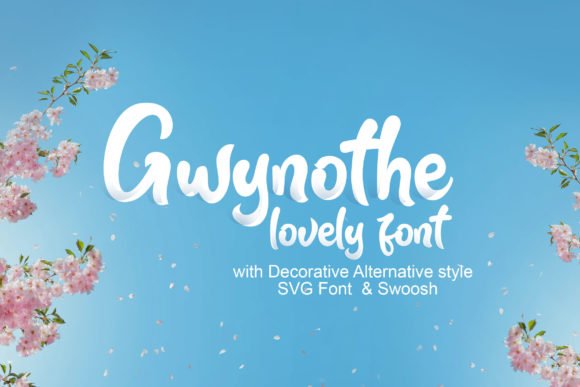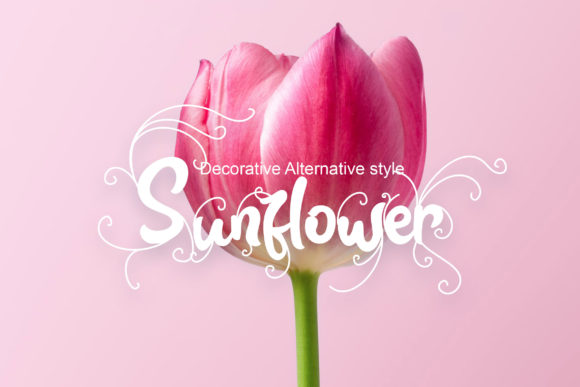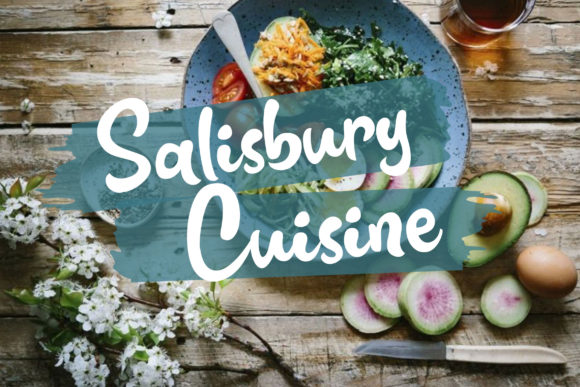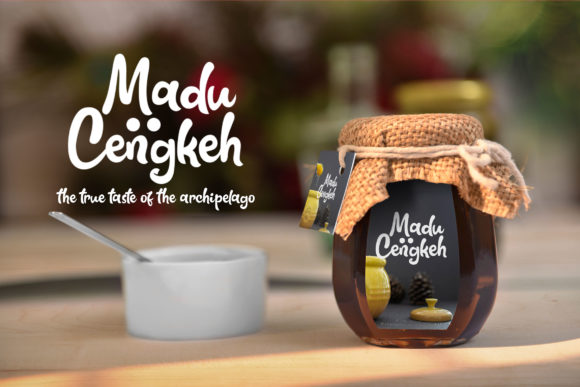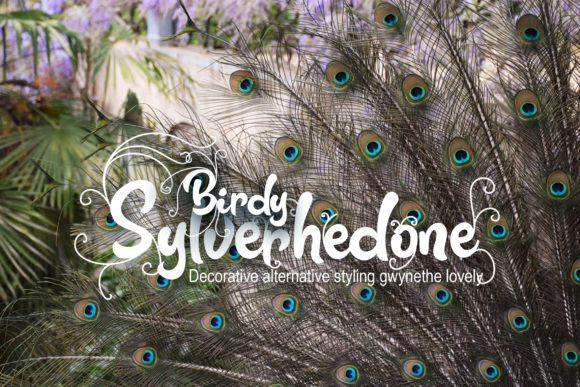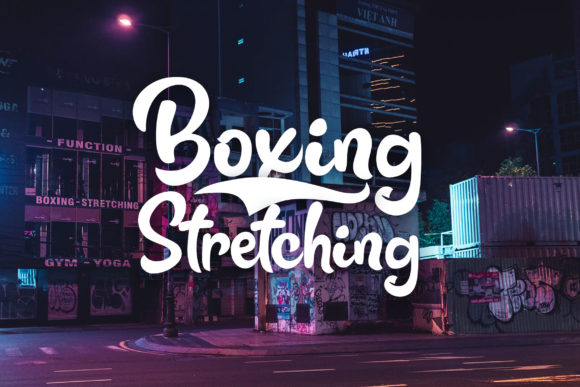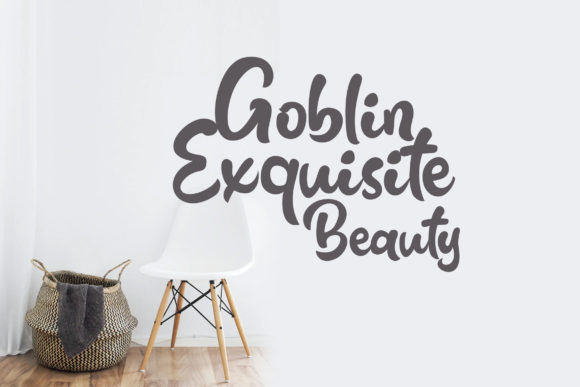
Unleash Your Creativity with the Perfect Handwritten Touch
Have you ever sat down with a blank page or screen, staring at a blank slate, trying to bring your creative vision to life? You’re not alone! We’ve all been there, struggling to find the right words or style to express our ideas. But what if you had the perfect tool to help you unlock your imagination and bring your creative ideas to life?
That’s where Gwynothe Font comes in – a cute and casual handwritten font that’s designed to add a friendly, approachable touch to any project. Whether you’re a designer looking to add a personal touch to a logo or branding, or a DIY enthusiast searching for the perfect calligraphy script for a handmade card, Gwynothe Font is the perfect companion to help you bring your creative ideas to life.
With its versatility and charm, Gwynothe Font is a valuable addition to any designer’s toolkit. Its unique, handwritten style makes it perfect for a wide range of applications, from social media graphics to wedding invitations.
Gwynothe Font Key Features
- Unique Characteristics: Gwynothe Font features a distinctive, hand-drawn aesthetic with intricate details and subtle texture, making it perfect for creating unique and eye-catching designs.
- Kerning and Ligatures: Gwynothe Font includes advanced kerning and ligature features, ensuring that text looks smooth and professional, even at small font sizes.
- Scalability: The font is designed to scale well, making it perfect for use in a variety of applications, from small text labels to large headlines.
Gwynothe Font Review
I recently had the chance to work with the Gwynothe Font, and I must say it’s an interesting choice for designers. Here are my thoughts.
- The Gwynothe Font has a unique, handwritten feel that can add a touch of personality to your designs.
- The font is highly customizable, with a range of weights and styles that allow you to fine-tune the look to suit your needs.
- The font is also quite readable, even at smaller font sizes, making it a good choice for body text.
- The Gwynothe Font can feel a bit over-the-top at times, with some letters and characters looking more like doodles than proper typography.
- The font may not be the best choice for formal or corporate designs, as it can come across as too casual or whimsical.
- The font’s customizability can also be a double-edged sword – while it’s great to have options, it can be overwhelming to choose the right style and weight for your design.
Overall, I’d say the Gwynothe Font is a great choice for designers who want to add a bit of flair to their work. Just be sure to use it judiciously and balance it out with more traditional typography to avoid overwhelming your audience.
Some common use cases for the Gwynothe Font include:
– Headlines and titles
– Quotes and captions
– Infographics and data visualization
– Any design project that requires a unique and elegant font.